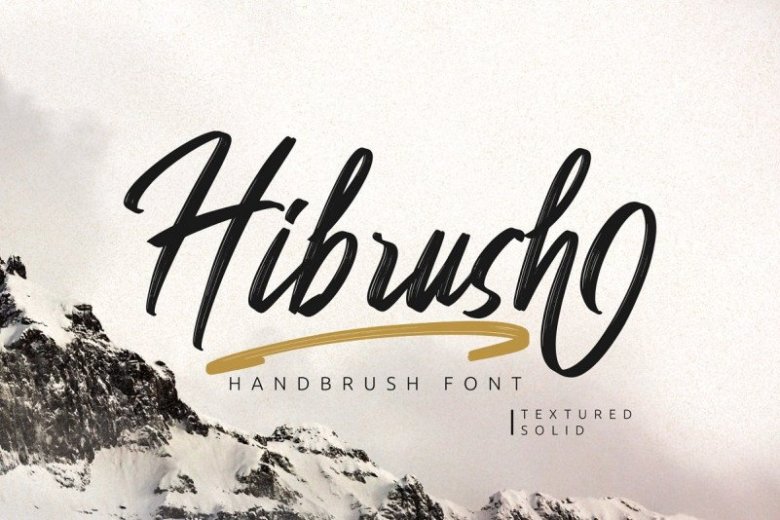
Hibrush Brush Font
This is a new handwritten brush font, is a bold and coll handwritten brush font with a nice feel. It will turn any design idea into a true standout! Introducing Hibrush Font. A brush font with 2 styles, regular (brush texture) and solid. It’s perfect for logotype, apparel, T-shirt, Hoodie, product packaging, social media post, flyer, or anything else with luxurius feels.